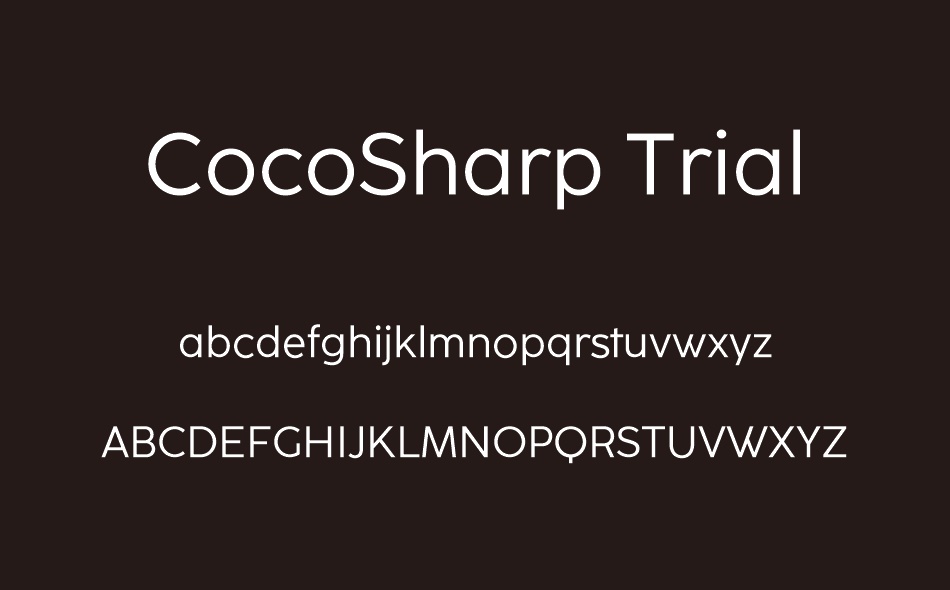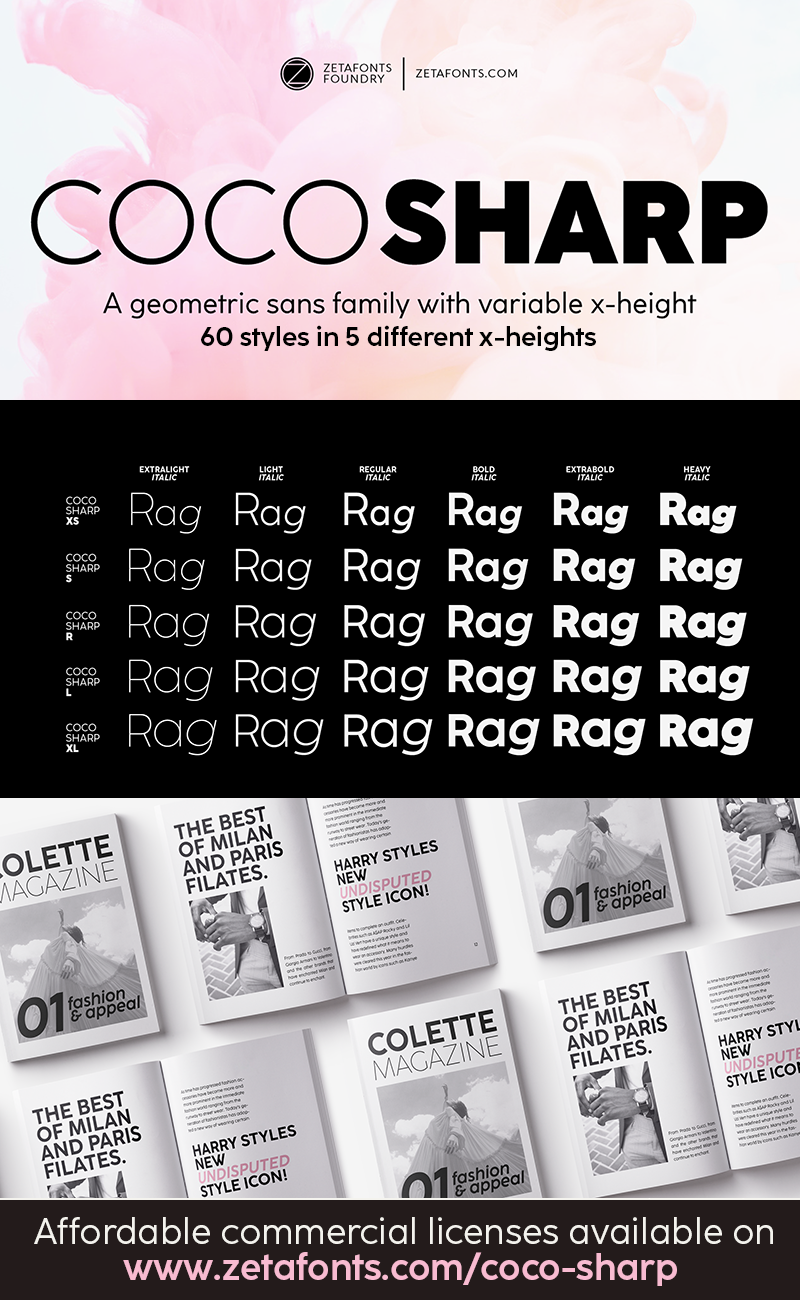
Coco Sharp Font
Coco Sharp Font - Coco sharp is the newest evolution of the coco typographic project, developed since 2013 by cosimo lorenzo pancini for the foundry. Coco sharp is a geometric sans serif font with humanist proportions and alternate letterforms, inspired by coco chanel.
Coco sharp is the newest evolution of the coco typographic project, developed since 2013 by cosimo lorenzo pancini for the foundry. Coco sharp is a geometric sans serif font with humanist proportions and alternate letterforms, inspired by coco chanel.
Coco sharp is a geometric sans serif font with humanist proportions and alternate letterforms, inspired by coco chanel. Coco sharp is the newest evolution of the coco typographic project, developed since 2013 by cosimo lorenzo pancini for the foundry.
Coco sharp is the newest evolution of the coco typographic project, developed since 2013 by cosimo lorenzo pancini for the foundry. Coco sharp is a geometric sans serif font with humanist proportions and alternate letterforms, inspired by coco chanel.
Coco sharp is a geometric sans serif font with humanist proportions and alternate letterforms, inspired by coco chanel. Coco sharp is the newest evolution of the coco typographic project, developed since 2013 by cosimo lorenzo pancini for the foundry.
Coco sharp is the newest evolution of the coco typographic project, developed since 2013 by cosimo lorenzo pancini for the foundry. Coco sharp is a geometric sans serif font with humanist proportions and alternate letterforms, inspired by coco chanel.
Coco Sharp Font
Coco sharp is a geometric sans serif font with humanist proportions and alternate letterforms, inspired by coco chanel. Coco sharp is the newest evolution of the coco typographic project, developed since 2013 by cosimo lorenzo pancini for the foundry.
Coco Sharp Is A Geometric Sans Serif Font With Humanist Proportions And Alternate Letterforms, Inspired By Coco Chanel.
Coco sharp is the newest evolution of the coco typographic project, developed since 2013 by cosimo lorenzo pancini for the foundry.